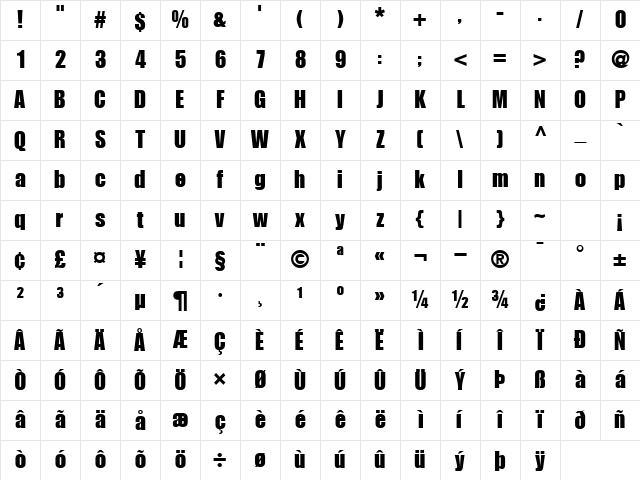
Complete ShortHaulSSK Regular glyph index. Displaying only characters natively supported by ShortHaulSSK Regular font.
ShortHaulSSK is a composed and adaptable typeface that performs quietly and consistently across a wide range of design contexts.